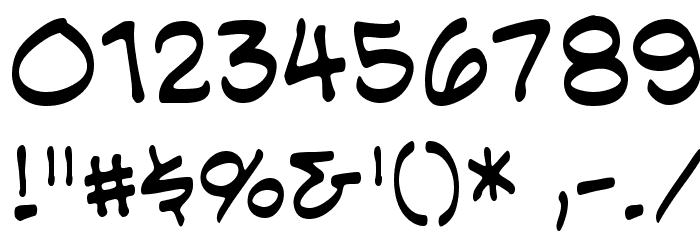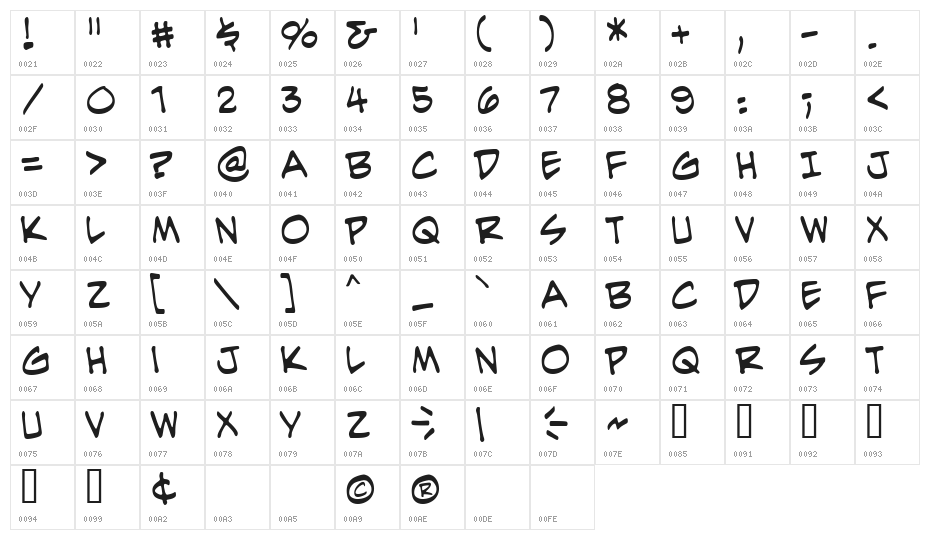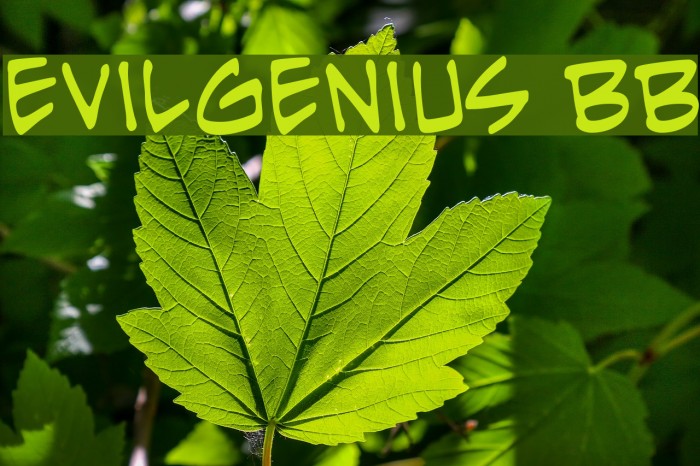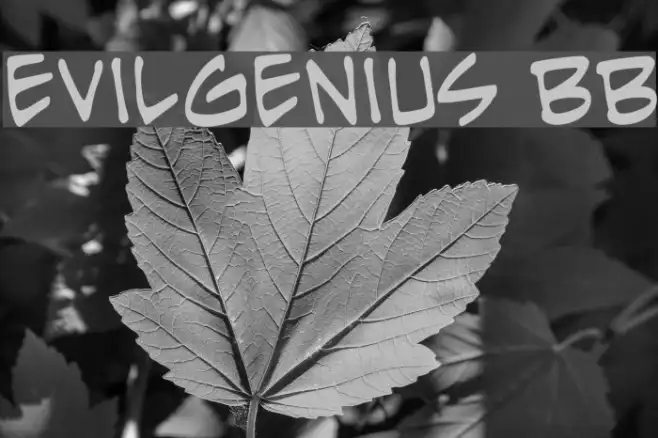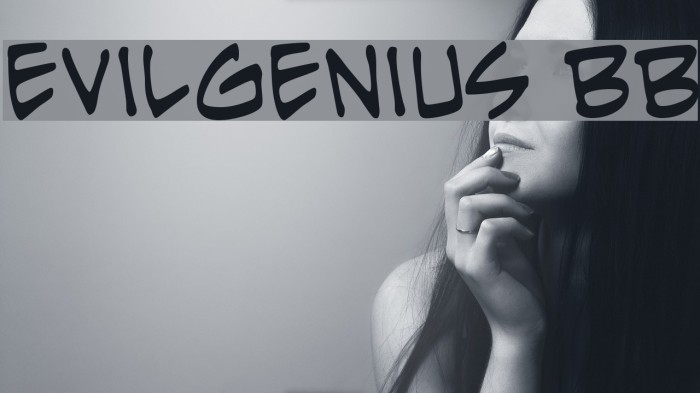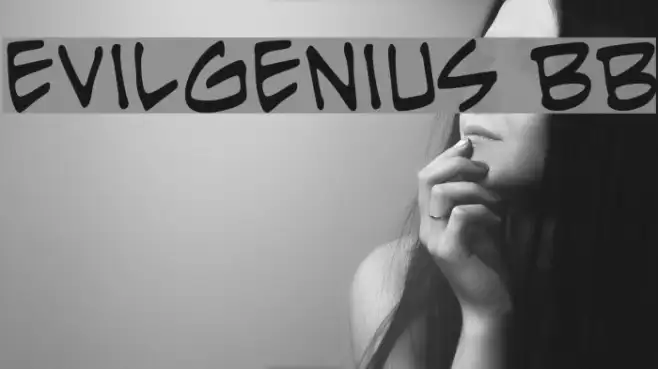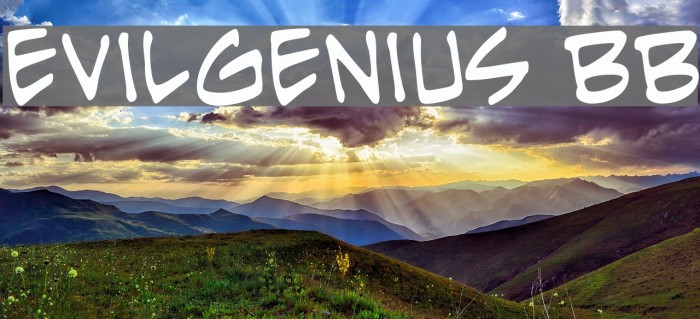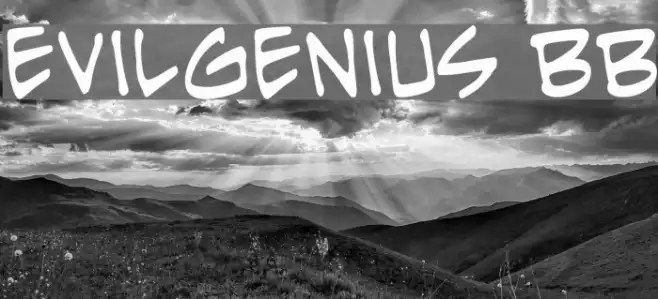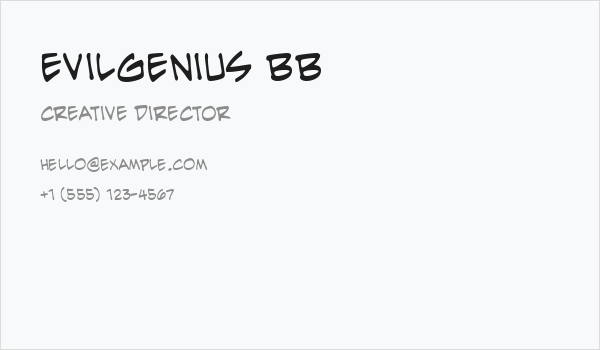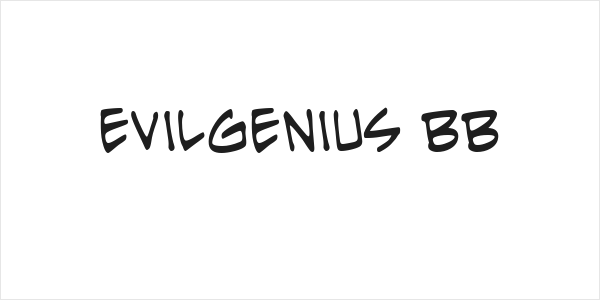
EvilGenius BB Font
EvilGenius BB Description
This font features a playful and dynamic style, characterized by its bold and slightly irregular strokes that give it a hand-drawn appearance. The letters are slightly slanted, adding a sense of movement and energy. The uppercase and lowercase letters maintain a consistent style, with rounded edges and a casual, informal feel. The numerals and special characters follow the same design principles, ensuring a cohesive look across all elements. This font is ideal for projects that require a fun and engaging aesthetic.
| Proposed Projects | Perfect for comic books, children's books, playful branding, and casual posters. |